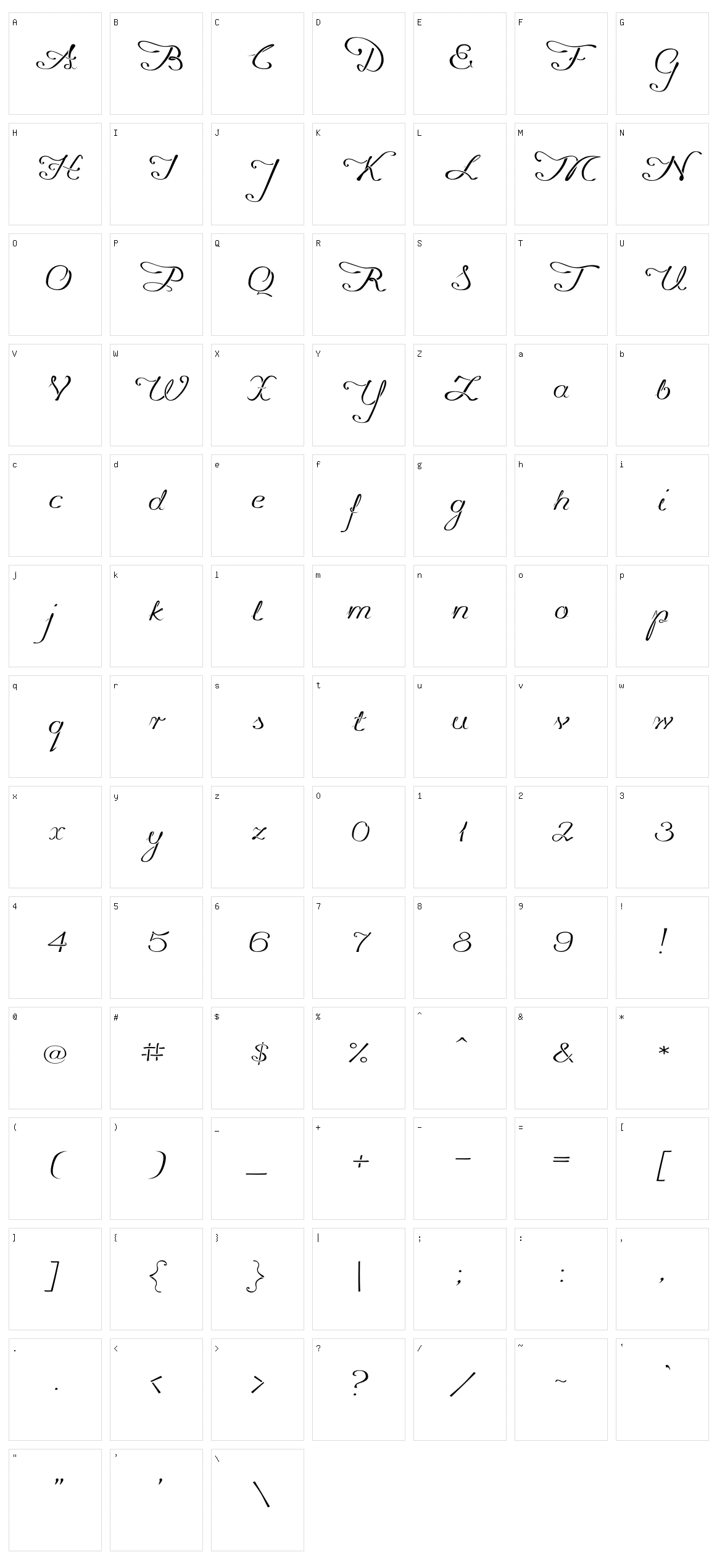
The free font Promocyja is carefully designed by gluk, showcasing a thoughtful balance of creativity and usability and falls under the Script font style. When you download the ZIP file, it contains only 635.76 KB of font files, making it lightweight and quick to download. Please review the license details below to understand permitted usage and distribution rights. If license information is not available, we recommend using this font for personal projects only or contacting the author directly for commercial usage permissions.